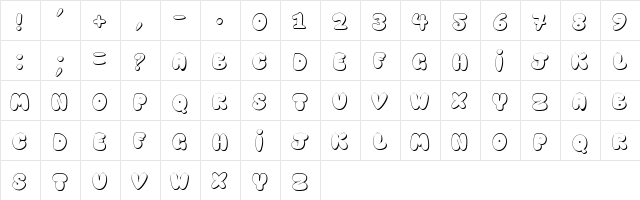
Happy brown cat shadow Regular
Design Context for Happy brown cat shadow Typeface
Happy brown cat shadow brings ornamental detail and strong personality to headlines and identities, where visual impact matters more than quiet functionality.
Font Pairing: Pair with a clean neutral sans-serif for body copy to let Happy brown cat shadow's character lead without overwhelming the composition.
Pro Tip: Treat Happy brown cat shadow as the centrepiece of your typographic hierarchy. One strong heading set in a decorative face can carry an entire layout.